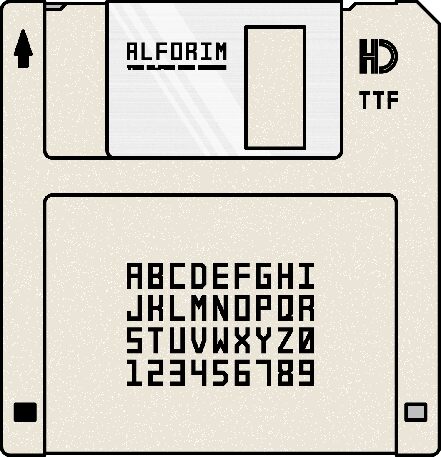
Alforim
Alforim is a rectangular font that has been carefully crafted, containing around 100 characters and 700 kerning pairs to ensure an optimized design.